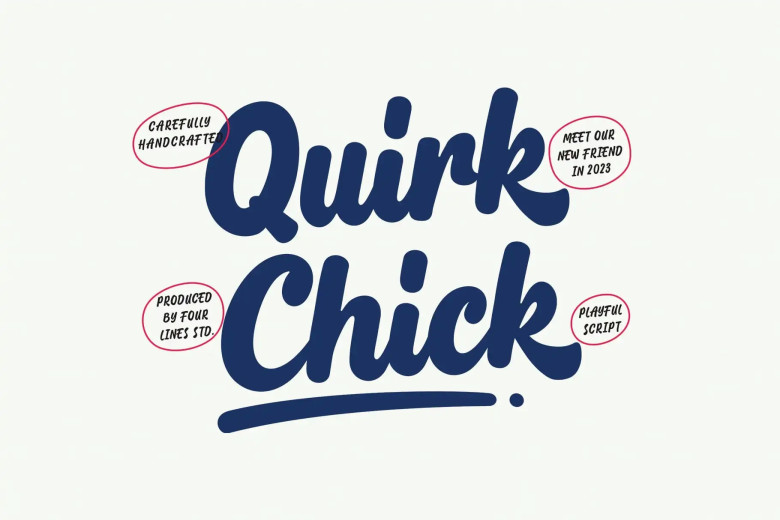
Quirk Chick Font
Quirk Chick font is more than a tool, it’s an expression. Created in collaboration with graphic designers, its flexible and versatile nature make it ideal for logos and branding designs as well as invitations and packaging projects. Make an impactful statement through eye-catching designs!
Quirk Chick Bold Script Font